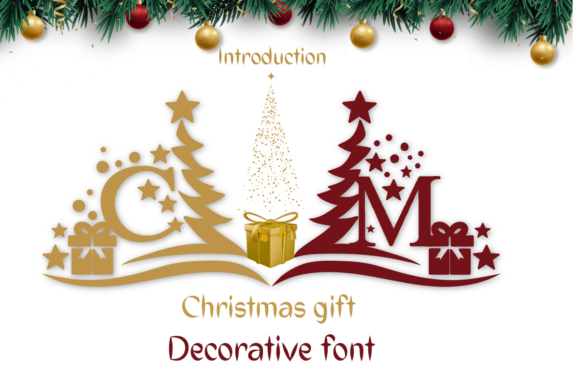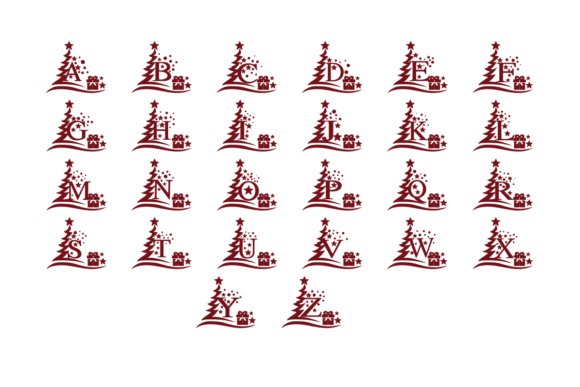
Christmas Gift Font
Christmas Gift – Decorative Font
Unwrap the magic of the season with Christmas Gift, a decorative font that sparkles with holiday cheer and festive charm. Each letter is wrapped in the joy of Christmas — featuring a delightful blend of Christmas trees, stars, and gift motifs that instantly bring warmth and wonder to your creative projects.
A Festive Touch in Every Letter
From A to Z, every glyph is beautifully designed to capture the spirit of giving. The letters bloom into elegant Christmas trees adorned with stars and presents, creating a harmonious balance between typography and illustration.
Designed for Holiday Joy
Perfect for crafting Christmas cards, invitations, gift tags, packaging, and festive logos, this font transforms ordinary text into cheerful, decorative artwork. It’s more than just a font — it’s a holiday story told through every curve and sparkle.
Perfect For
Holiday branding · Greeting cards · Invitations · Sublimation · Posters · Home décor · Christmas merchandise
Add a sprinkle of joy to your designs with Christmas Gift Decorative Font — a celebration of warmth, light, and creativity wrapped in the beauty of the Christmas spirit.